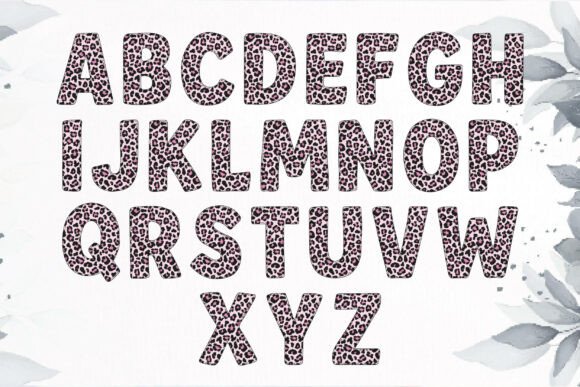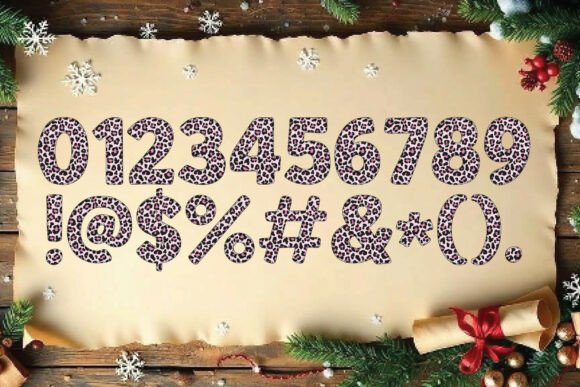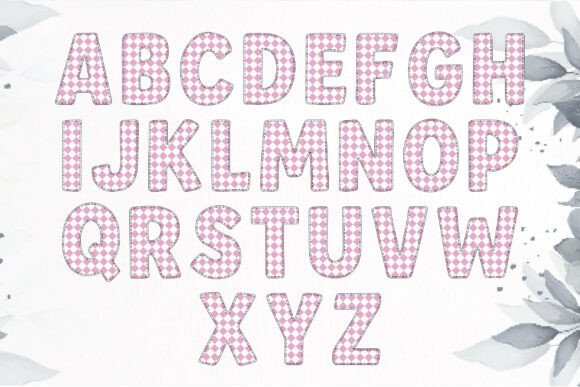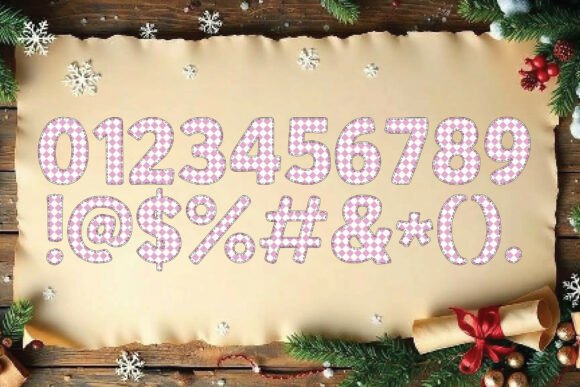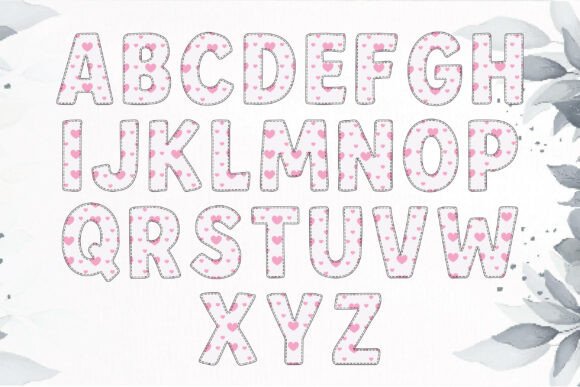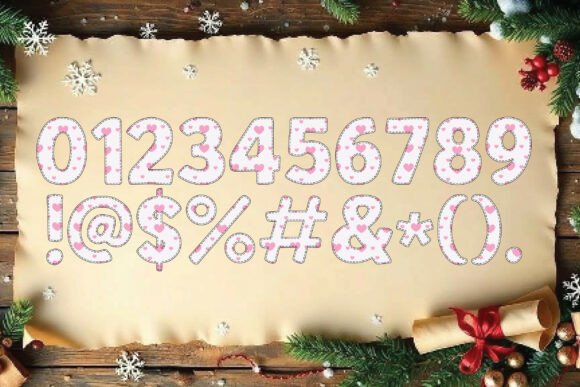
Introduction to Mother Day Pink Font Font
Fonts play a crucial role in design, and the Mother Day Pink Font font is a typeface that brings both character and versatility to any project. Whether you’re working on a branding project, a website, or a print design, the Mother Day Pink Font font offers a unique style that can elevate your work.
Mother Day Pink Cute Mom Alphabet Set Create sweet and stylish designs with this beautiful Mother Day Pink Font Bundle.
This collection includes four adorable styles: Mother Day Pink, Mother Day Pink Heart, Mother Day Pink Box, and Mother Day Pink Flower Each font features a soft feminine pink theme, perfect for making eye-catching Motherβs Day and family celebration designs.
Key Features of Mother Day Pink Font Font
Why Choose Mother Day Pink Font Font?
The Mother Day Pink Font font is more than just a typeface β it’s a design tool that helps you communicate your message with style and clarity. Its unique character set and versatile design make it suitable for a wide range of applications, from elegant invitations to bold headlines.
With its carefully crafted letterforms and balanced proportions, the Mother Day Pink Font font ensures readability and visual appeal across all mediums.
What makes Mother Day Pink Font font special?
The Mother Day Pink Font font stands out with its unique design, exceptional readability, and versatility across various design applications.